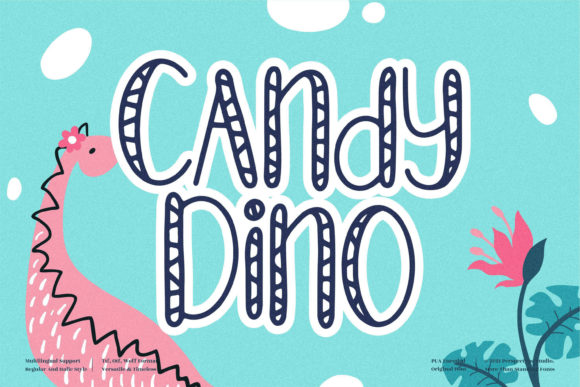
The Sweet Spot: Discovering the Charm of Candy Dino Font
I’ll never forget the time I was working on a whimsical children’s book project, and my designer brain was stuck on finding the perfect font. The brief was simple: a fun, playful, and friendly font that would appeal to kids and make the story come alive. After hours of scouring through font libraries, I stumbled upon Candy Dino Font. It was love at first sight! 🎉
Candy Dino Font has been a game-changer for my designs, and here’s why:
• ✨ Fun and playful vibe: This font exudes a sense of fun and playfulness, making it perfect for children’s books, games, and cartoons.
• ✅ Highly legible: Despite its playful nature, Candy Dino Font remains highly legible, even at smaller font sizes.
• 🌈 Colorful and vibrant: The font’s design is reminiscent of colorful candies, adding a pop of fun to any design.
However, there are a few quirks to be aware of:
• 🤔 Limited use in formal designs: Due to its playful nature, Candy Dino Font might not be the best fit for formal or professional designs.
• ⚠️ Some characters may require manual kerning: As with any font, some characters may require manual kerning to achieve optimal spacing.
Exploring Alternatives: Similar Fonts to Candy Dino
If you love Candy Dino Font, you might also enjoy:
• Dino-Mite: A bold, adventurous font perfect for kids’ games and edgy designs.
• Candy Script: A sweet, cursive font ideal for adding a touch of whimsy to your designs.
• Friendly Comic: A fun, comic book-inspired font great for creating engaging stories and cartoons.
• Bubblegum Sans: A playful, sans-serif font suitable for designs that require a fun, bubbly vibe.
The Story Behind Candy Dino Font
Candy Dino Font was designed with the intention of creating a fun, friendly, and approachable font for kids and designers alike. Inspired by the colorful world of candies and dinosaurs, the font’s creator aimed to craft a unique and engaging typeface that would bring joy to anyone who used it.
Can I use Candy Dino Font for my children’s book? Absolutely! Candy Dino Font is an excellent choice for children’s books, as it’s designed to be fun, engaging, and easy to read.
Does Candy Dino Font support OpenType features? Yes, Candy Dino Font supports OpenType features, including stylistic alternates, ligatures, and glyphs, allowing you to add more creativity to your designs.
Is Candy Dino Font available in different weights or styles? Currently, Candy Dino Font is available in a single weight, but its versatility and range of OpenType features make it suitable for various design applications.